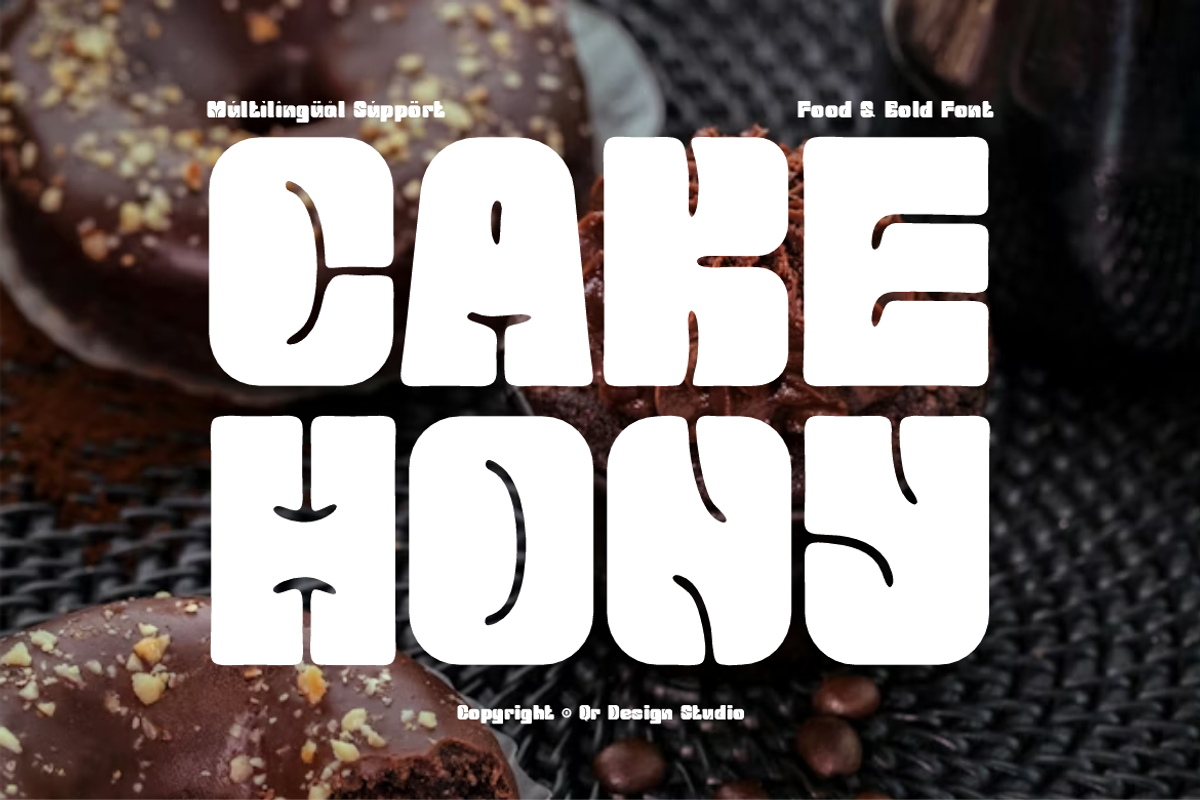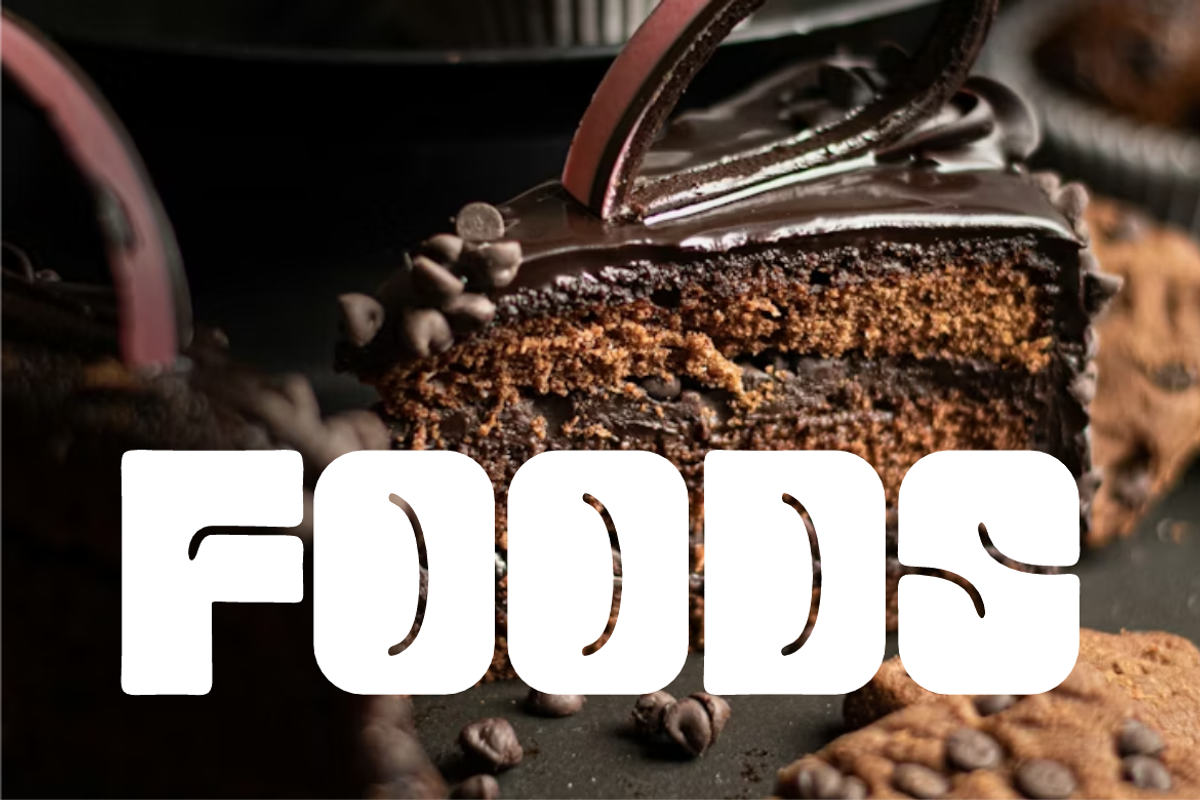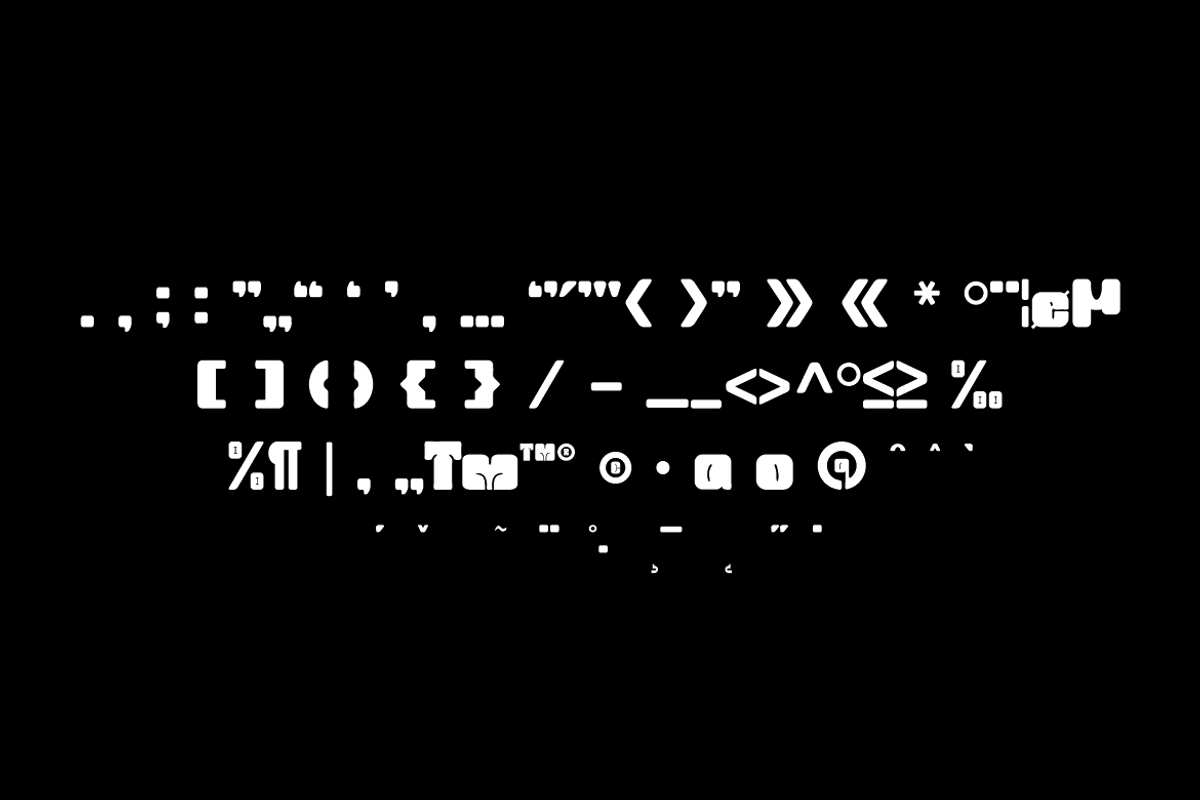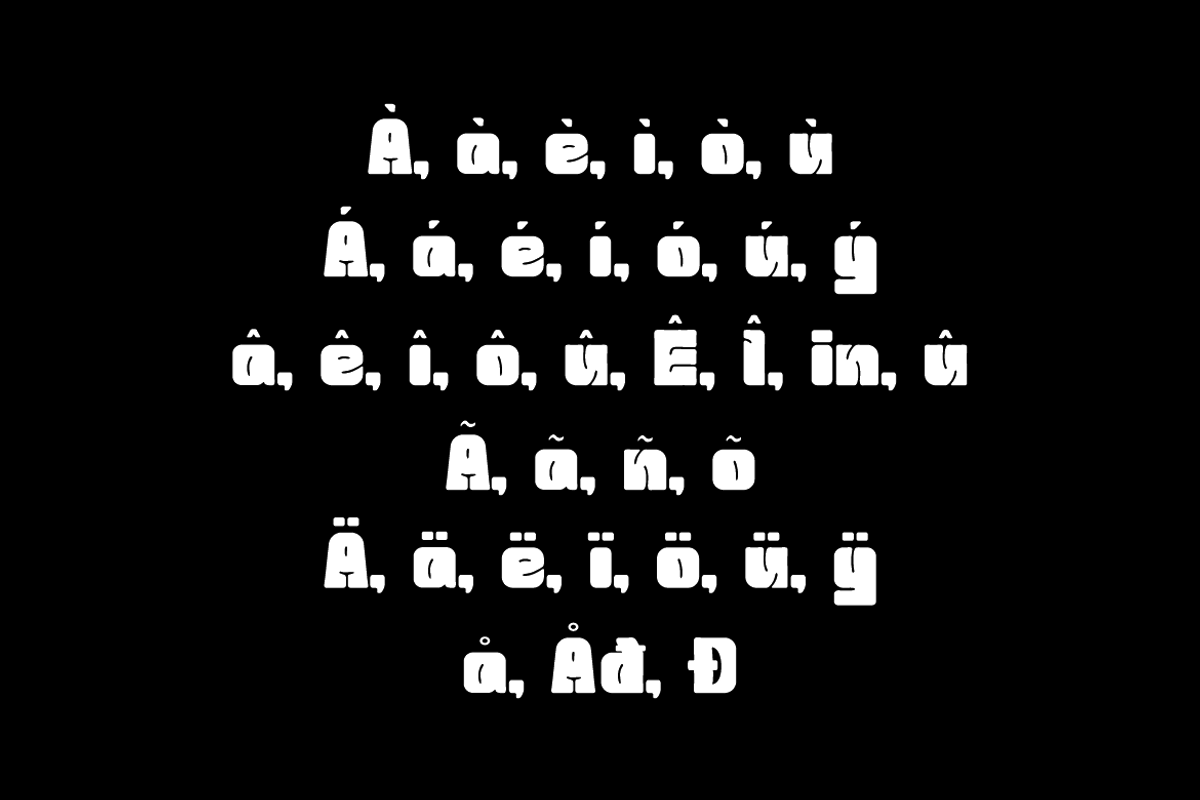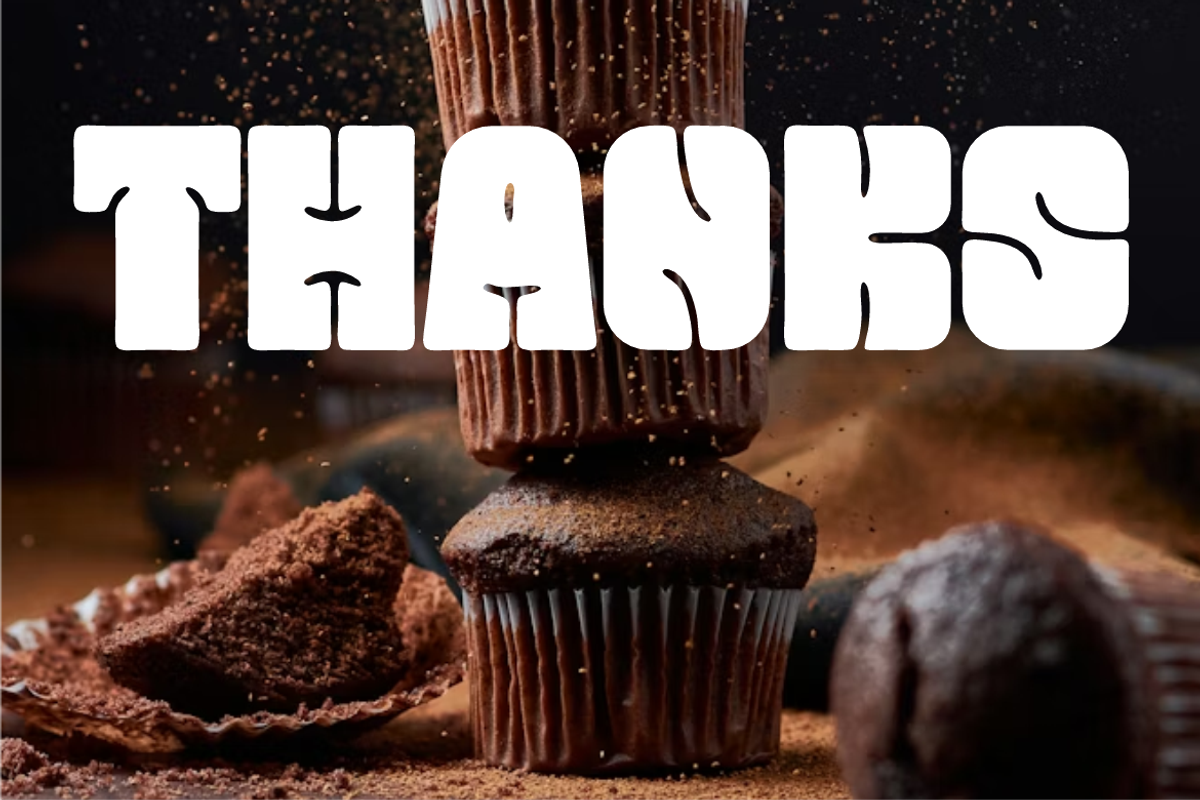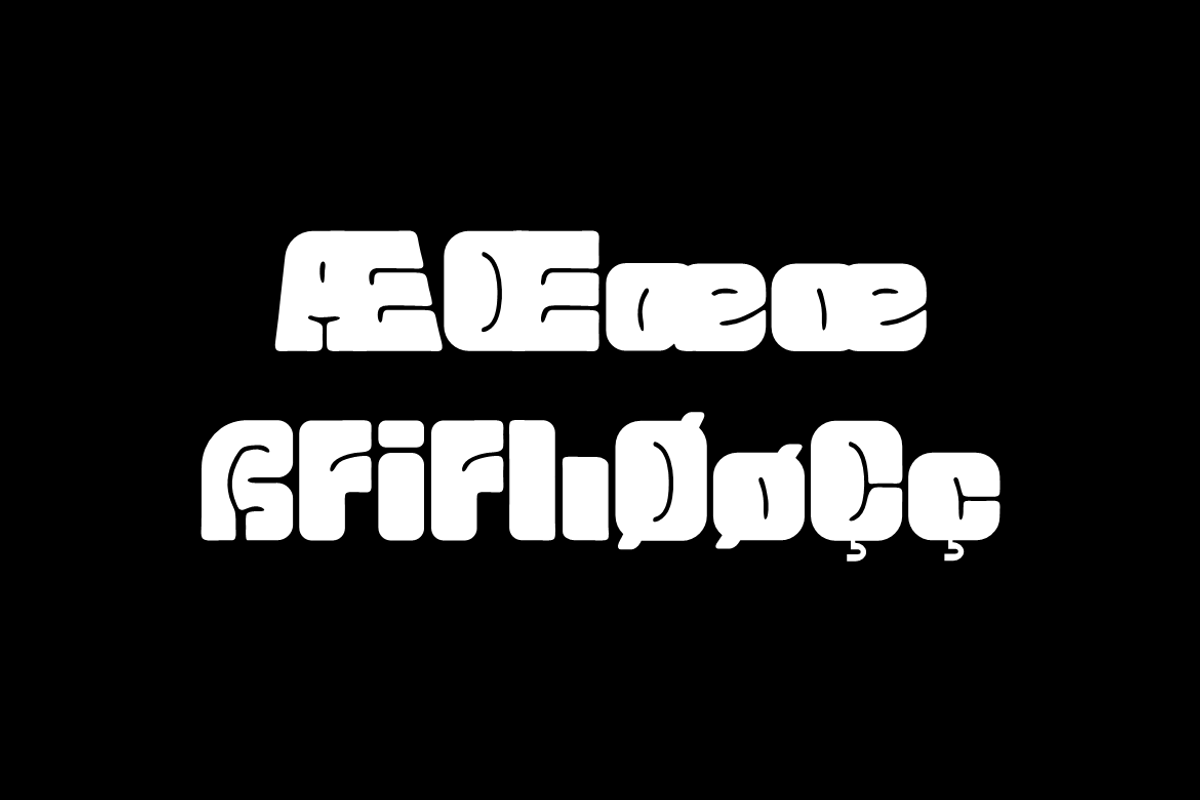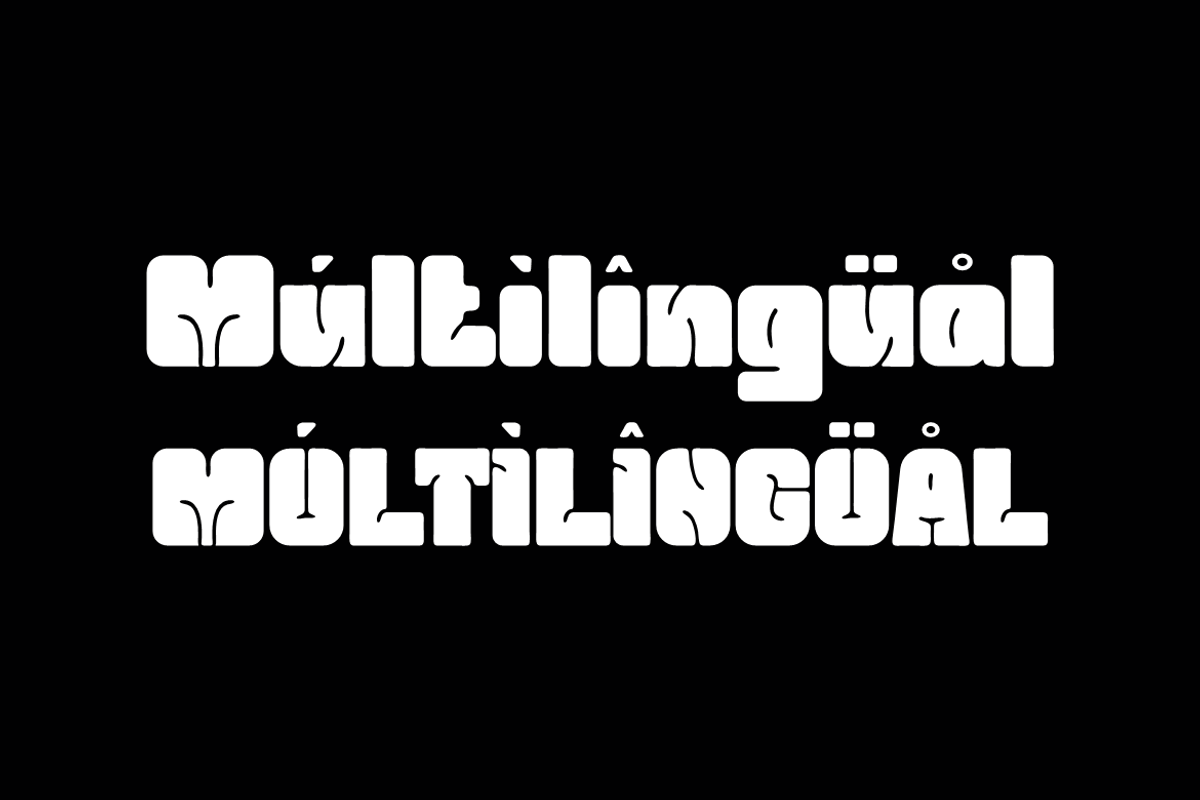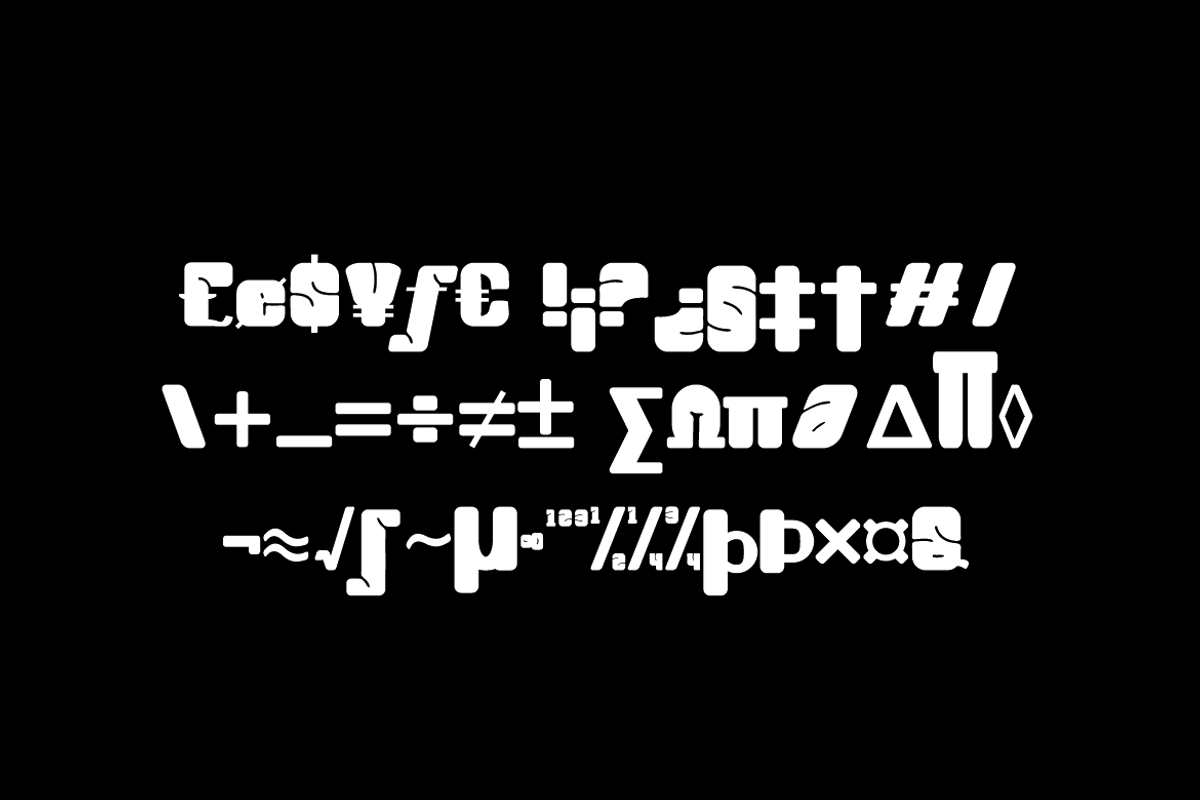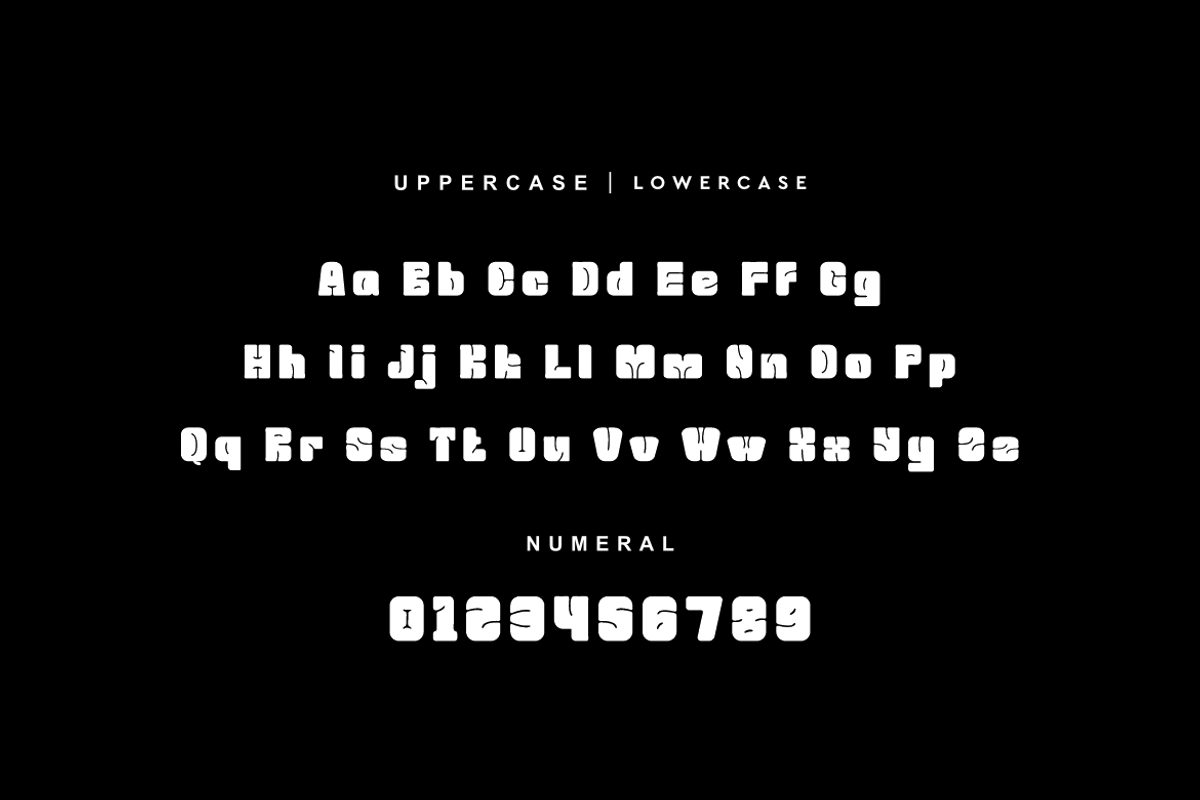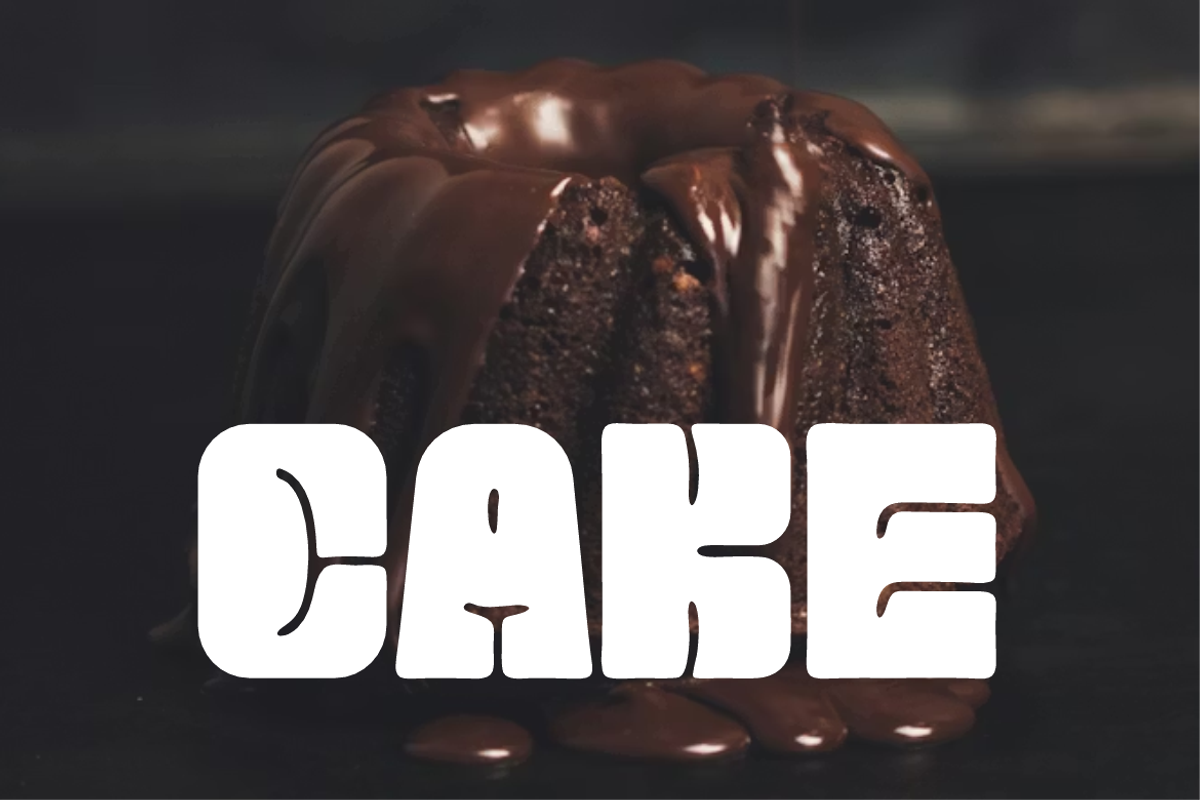
Cake Hony - Food Font
Cake Hony Font is a bold and authentic display typeface.
It’s perfect for various branding projects such as logos, food designs,
and more. This font stands out beautifully in a wide range of contexts.